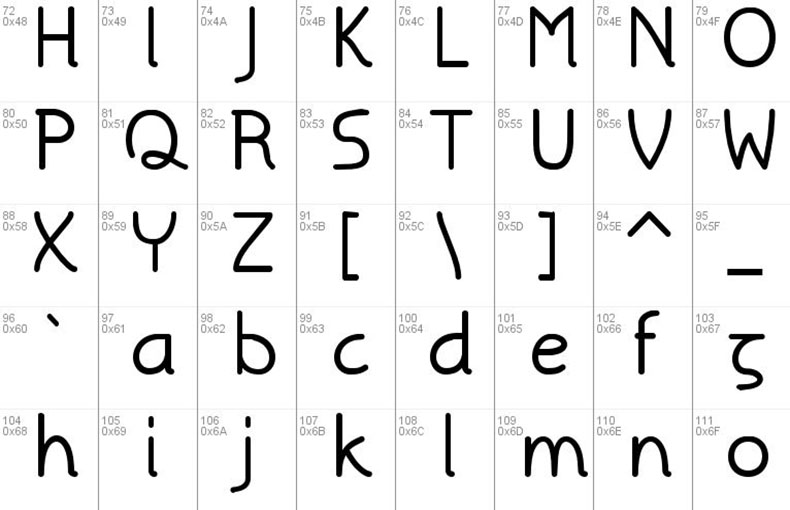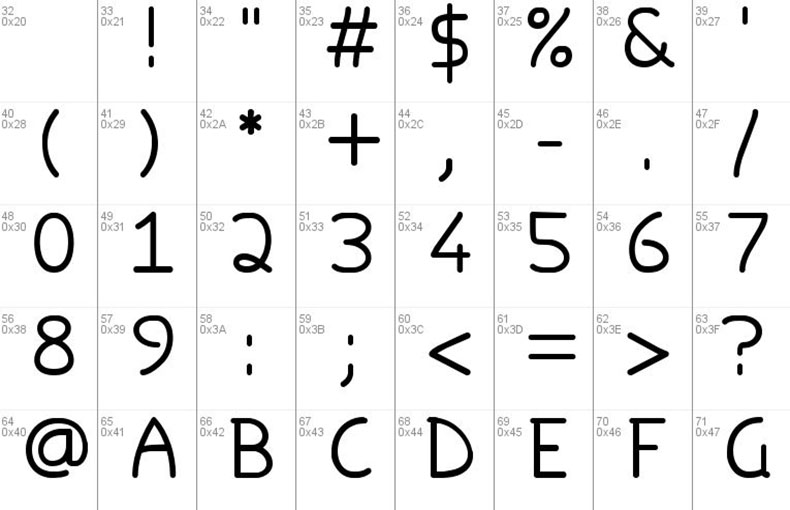
Torid Font is a basic, various typeface designed by Ruben Holthuijsen that offers a simple yet elegant design suitable for a wide range of uses.
This basic font is available in two styles—bold and regular—allowing users to choose the one that best meets the requirements of their project. It includes 1220 glyphs and 132 different support languages.
The font’s modern style and clean lines make it the perfect choice for use in print and digital media, including logos, headers, and body text.
It is a great option for usage in branding, advertising, and web design due to its readability and legibility. This font’s ability to preserve its visual integrity on many platforms and gadgets is one of its advantages.
It is a straightforward typeface that may be used for a variety of purposes and still be flexible.
Usage Of Torid Font
Posters, advertisements, headers, headlines, birthday cards, flyers, banners, social media postings, banners, clothing brands, wedding cards, invitation cards, report cards, merchandise, and promotional materials are all excellent uses for this font.
It is an excellent option for designers who wish to produce amazing visuals that make an impression thanks to its clear lines, legibility, and visual structure.
What is Torid Font?
A typeface or writing style called Torid Font is used for text in publications, websites, and designs.